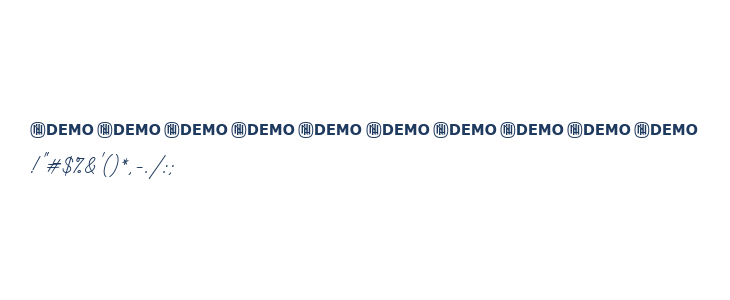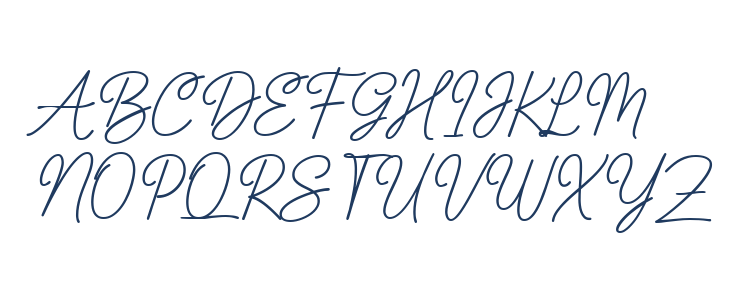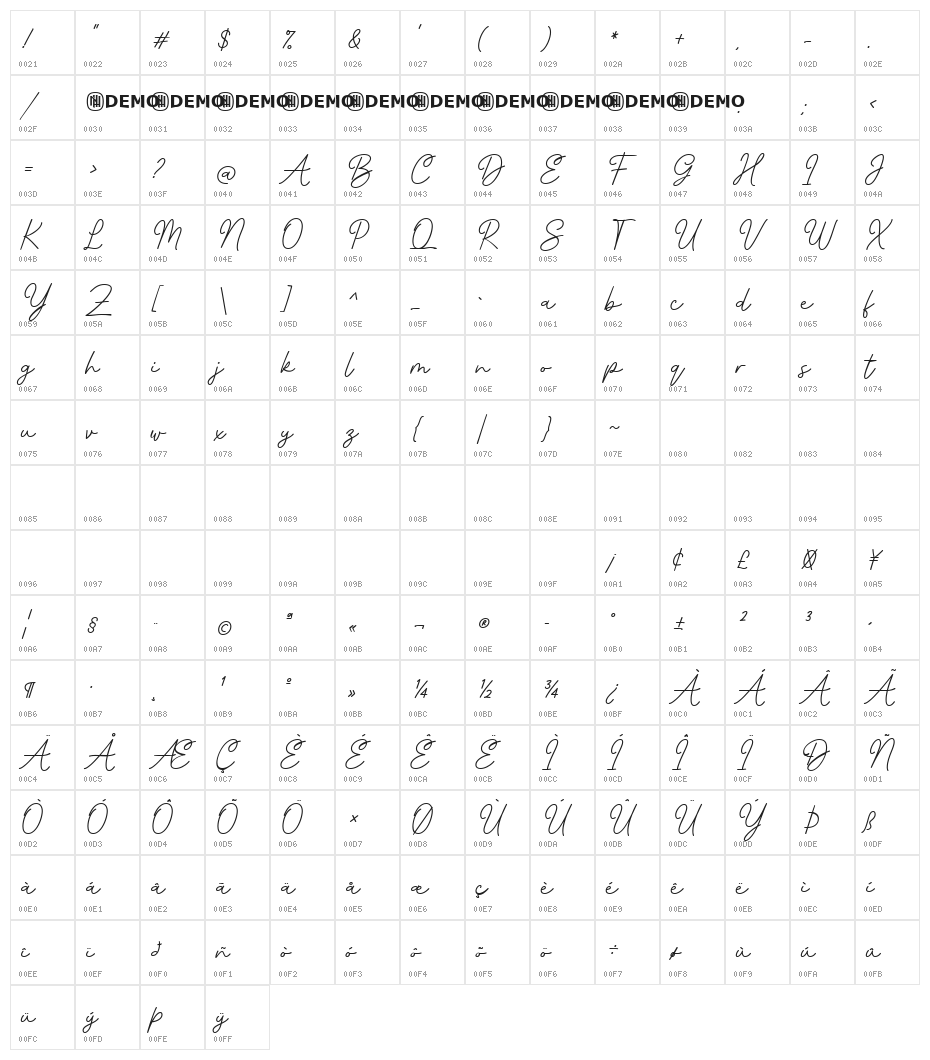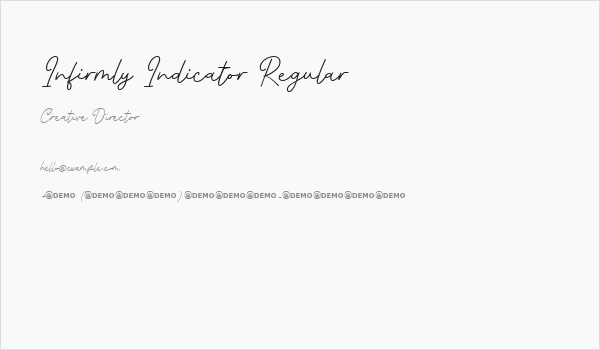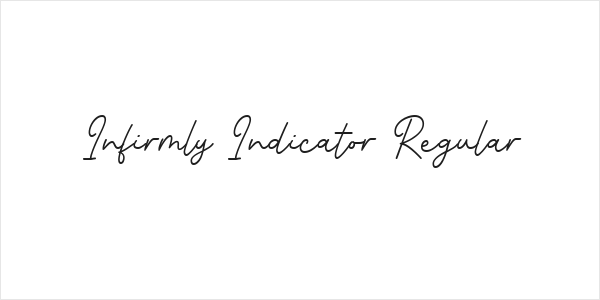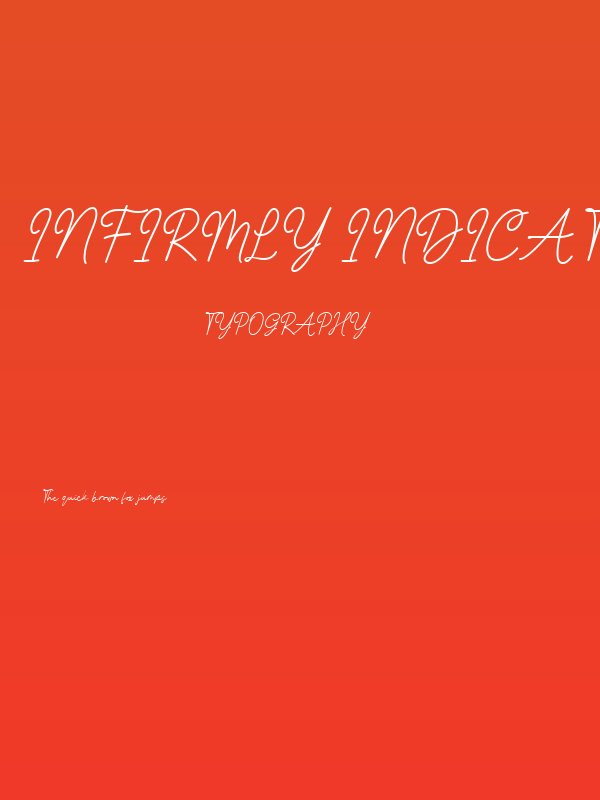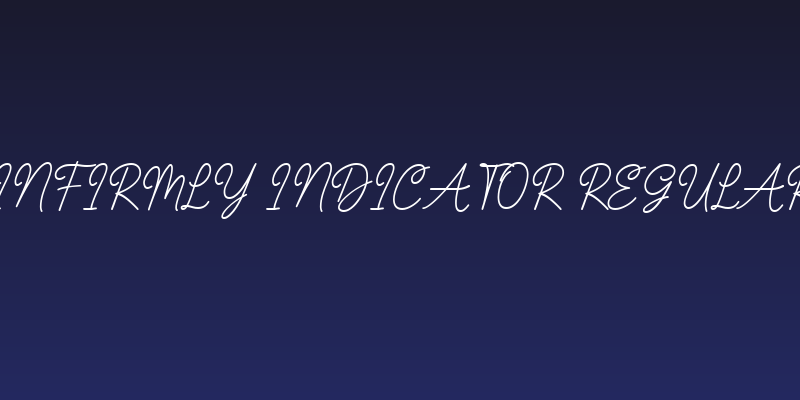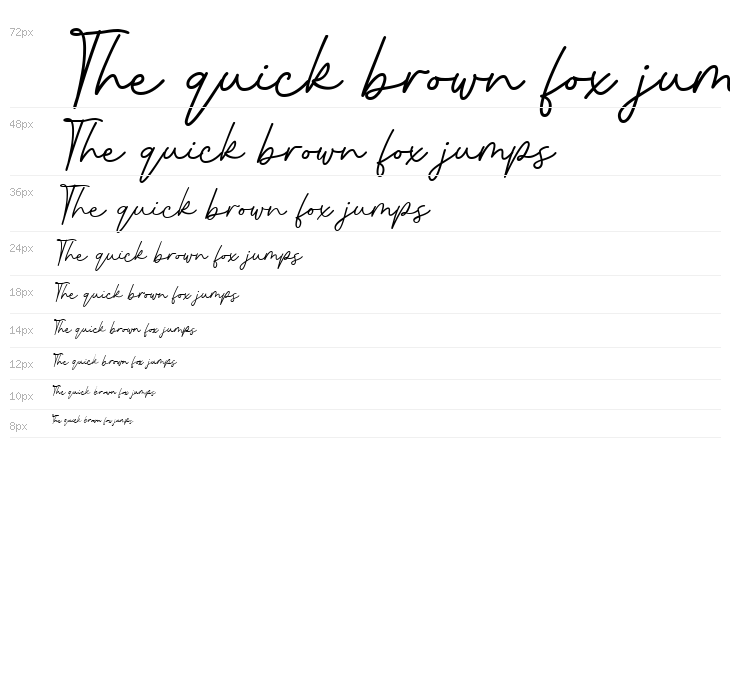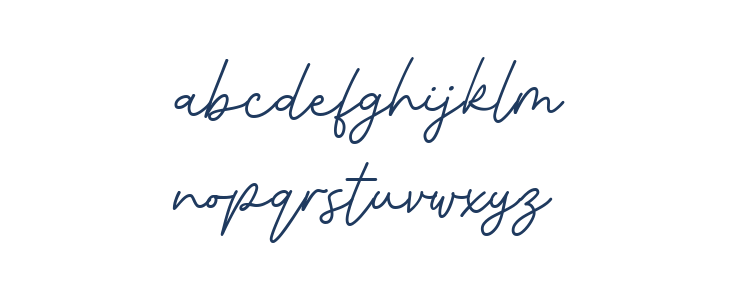
Infirmly Indicator Regular Font
Infirmly Indicator Regular Description
A handwritten script font with fluid, connected strokes and a casual, elegant appearance. The characters are slightly slanted, with consistent line thickness and generous spacing, giving it a modern yet approachable feel.
| Overall Style | Modern, Casual, Elegant |
| Use Case | Logos, Headlines, Invitations, Social media posts |
| Proposed Projects | Invitations, greeting cards, personal branding, quotes, social media graphics. |